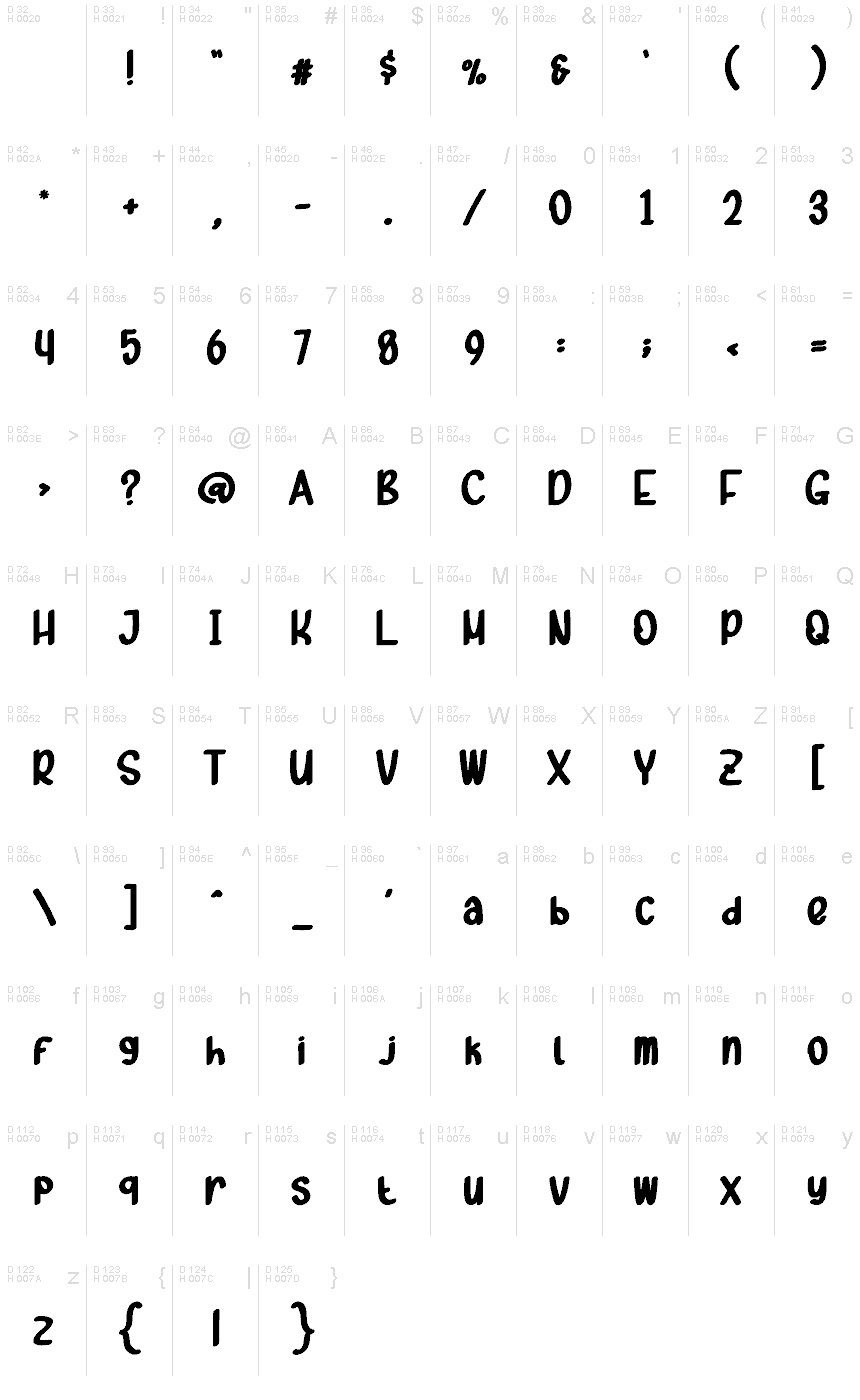
Costume Party
Costume Party font, created by Andi Moz, is a casual brush font with rounded and smooth edges. Its relaxed style gives off retro vibes for a friendly and approachable tone suitable for vintage, modern-day designs. The font maintains a level of simplicity with its sharp characters that fulfill the projects to which they are added.
This free display font is truly incredible for headlines, greeting cards, notebooks covers, posters, logos/branding projects, book/magazine covers/titles or quote typography. Other ideas include pairings with script fonts in certain areas where bold characters steal the focal point otherwise known as all caps blends.